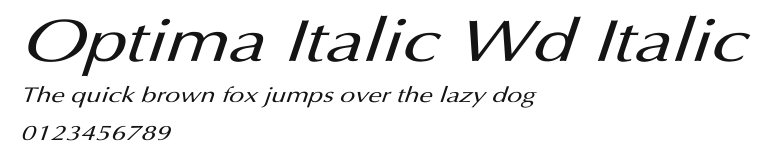
Optima Italic Wd Italic.ttf is a modern, elegant sans-serif font designed for ultimate readability and visual harmony. Perfect for branding, headlines, web design, and print materials.